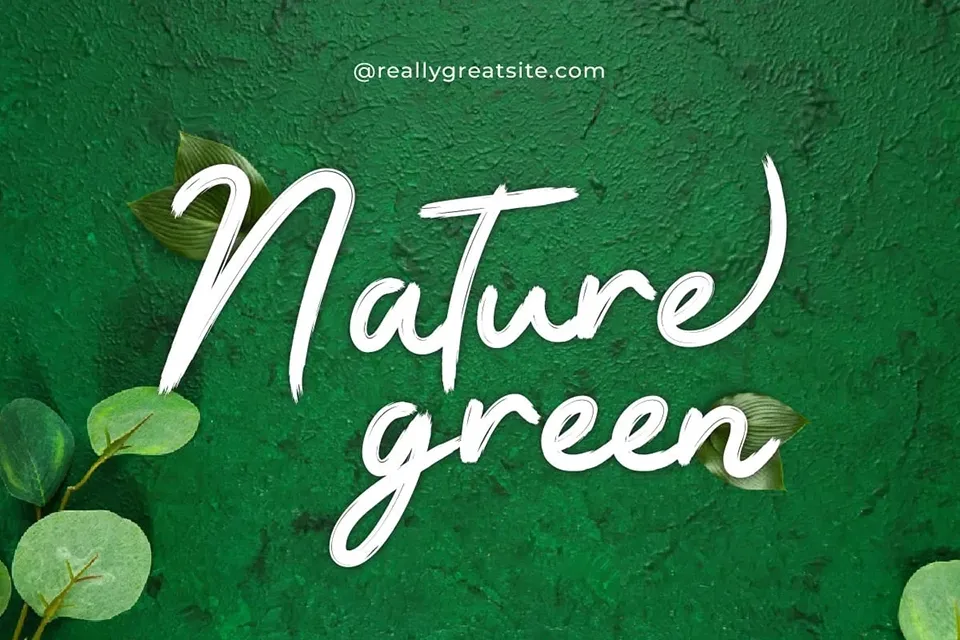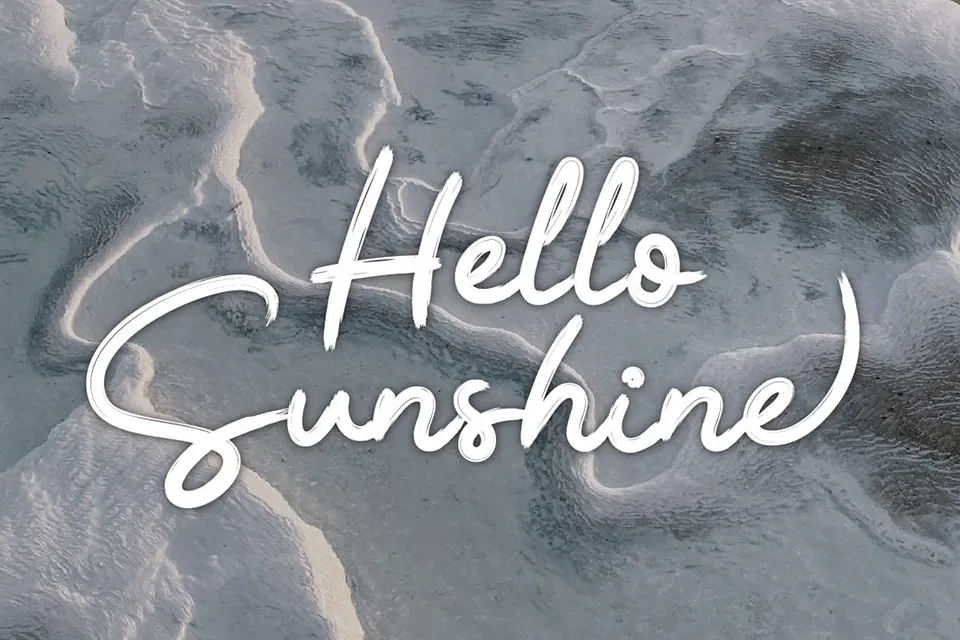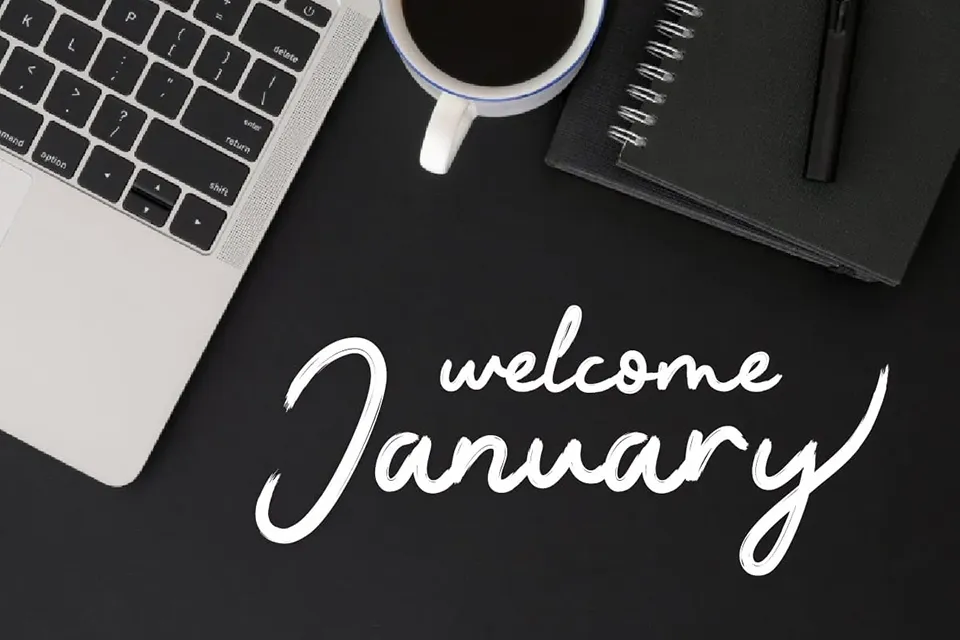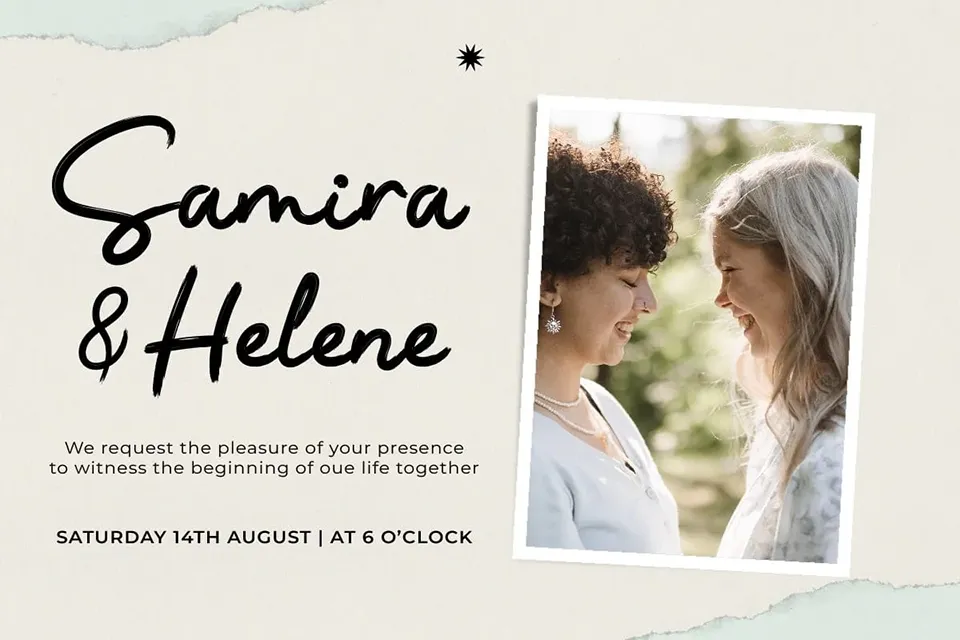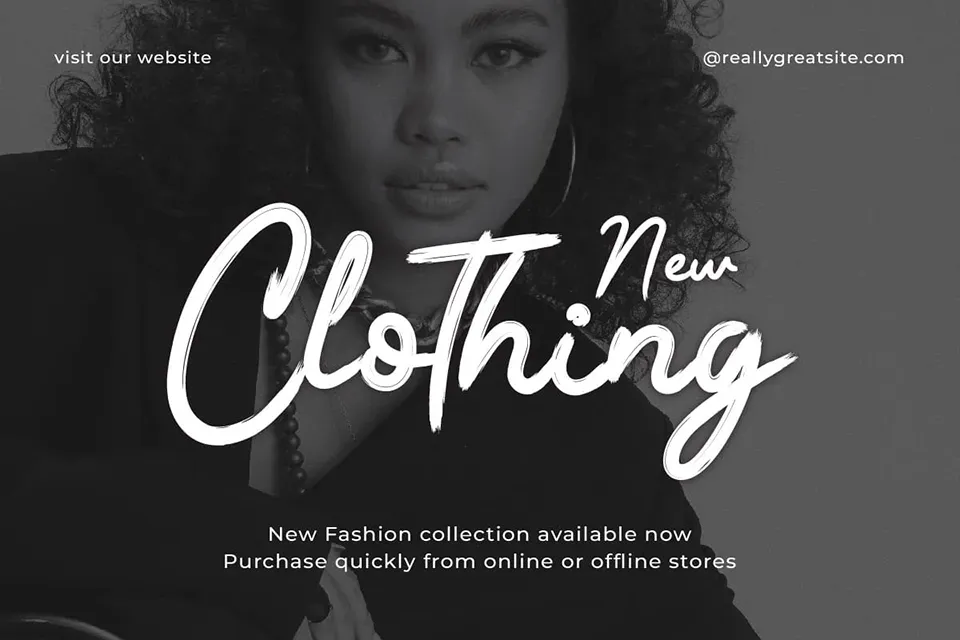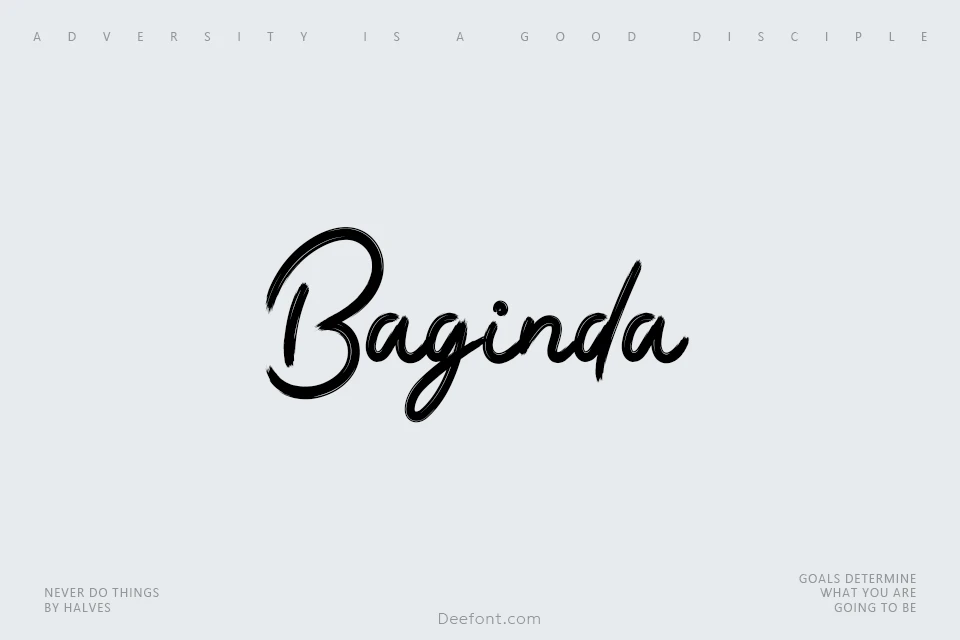
Baginda Brush Font
Baginda Brush Font is a stunning Script hand-lettering typeface that combines bold strokes with artistic flair. Designed to evoke a sense of creativity and dynamism, this font is perfect for projects that demand a personal and expressive touch. Its smooth, flowing lines and textured brush style make it ideal for branding, posters, invitations, logos, and social media graphics. Baginda Script Font stands out with its modern yet rustic aesthetic, capturing the energy of handwritten artistry while maintaining excellent readability. Whether used for casual designs or sophisticated compositions, this font adds character and vibrancy to any creative project.